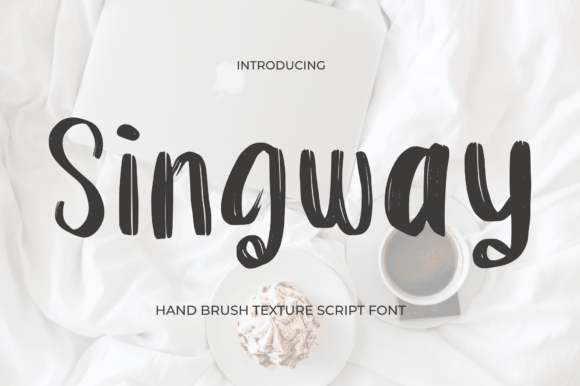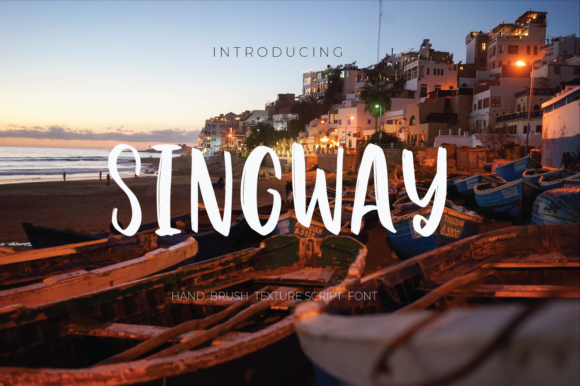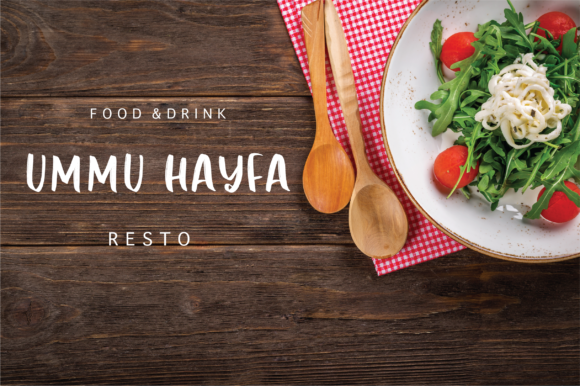
About Singway Font
Singway is a cool and casual handwritten font. It works great on various designs that require a brushed, trendy touch. Your options are limitless!